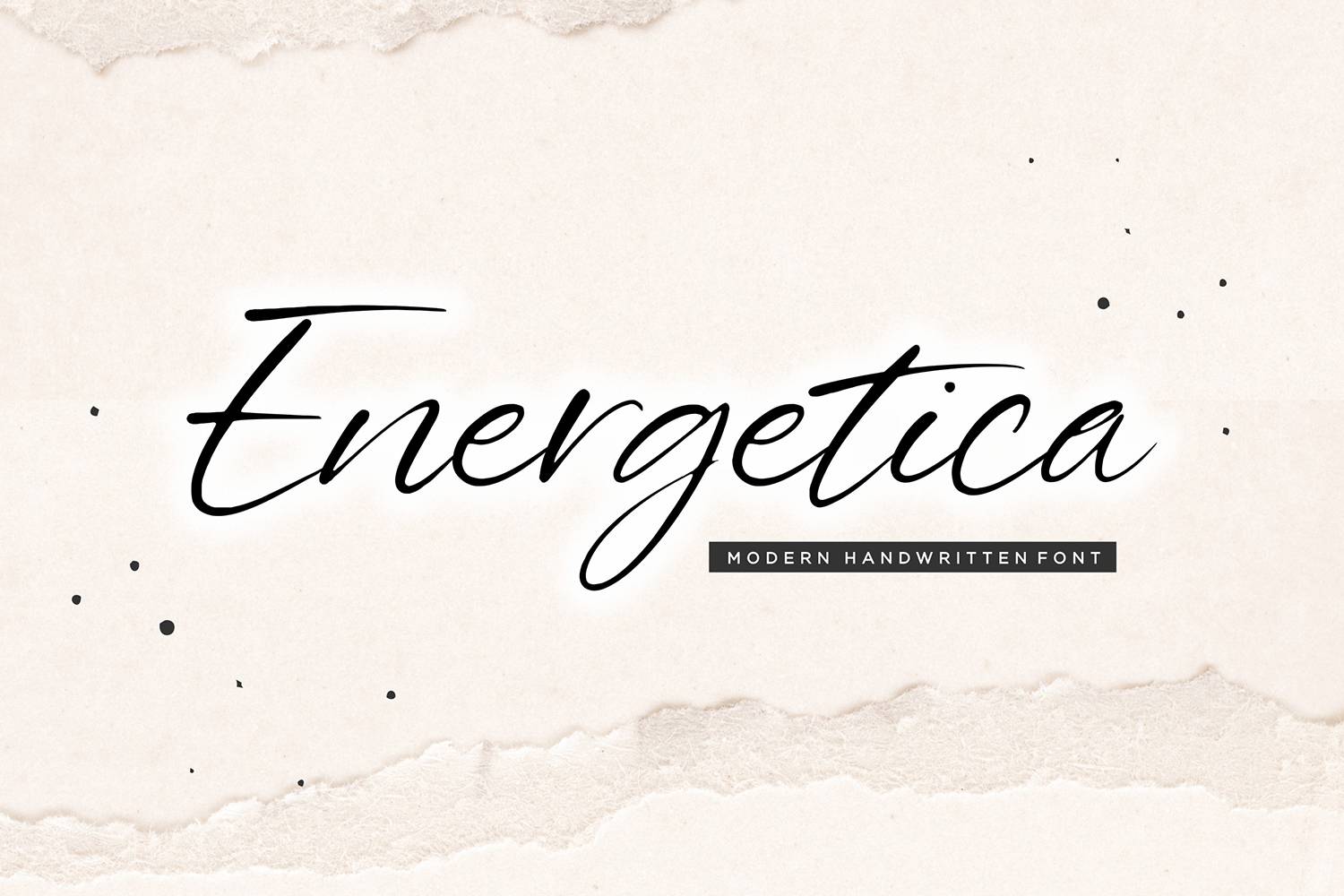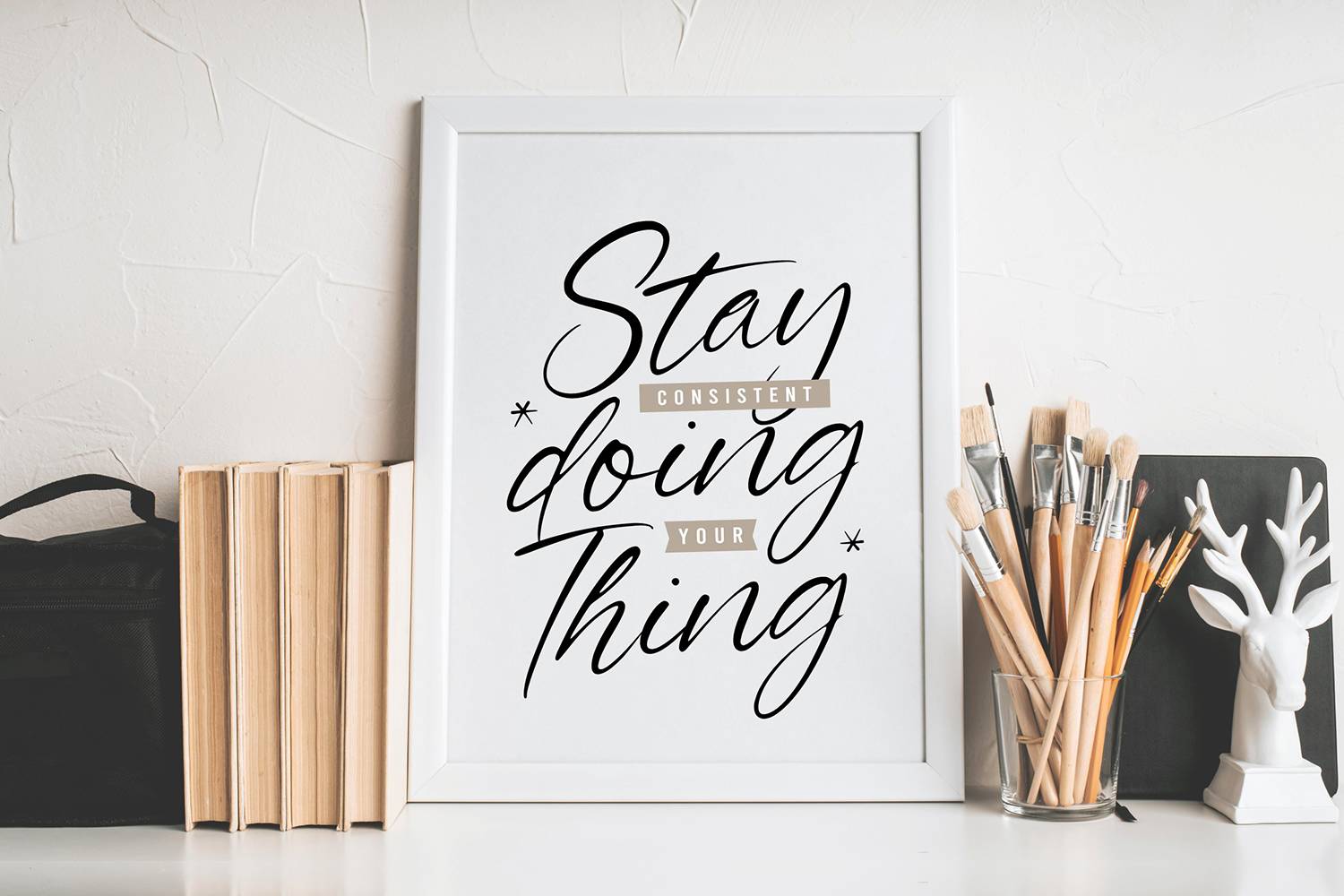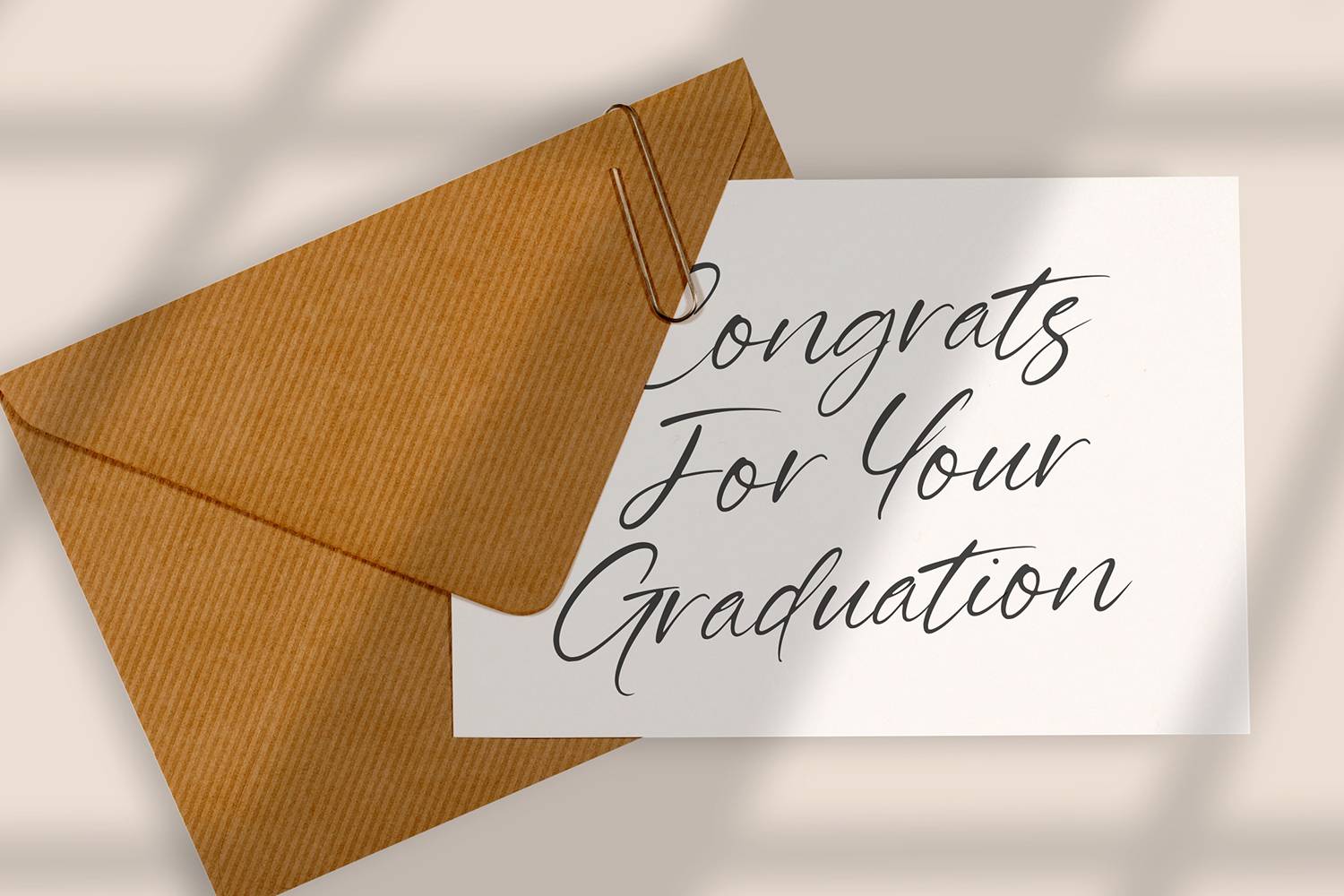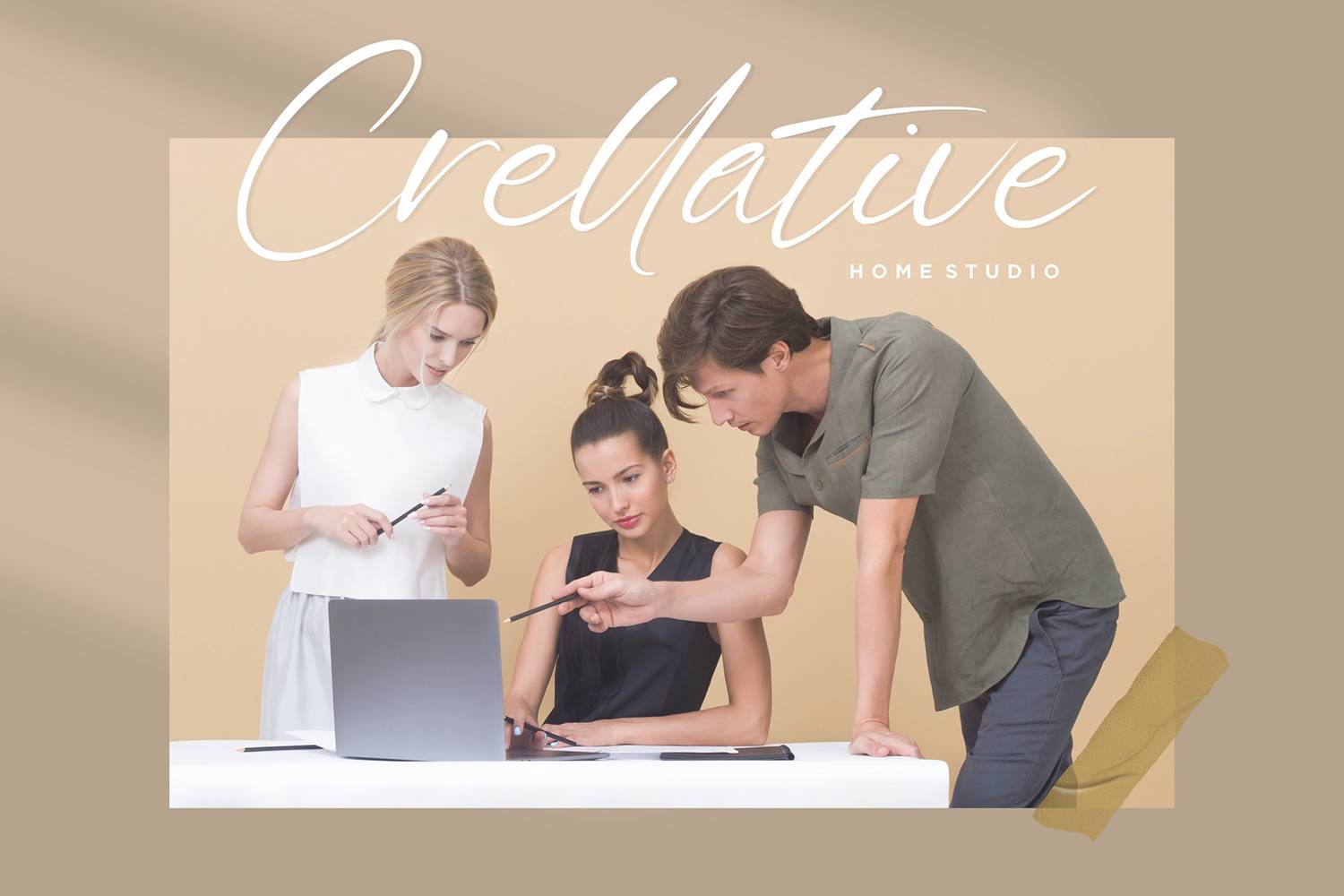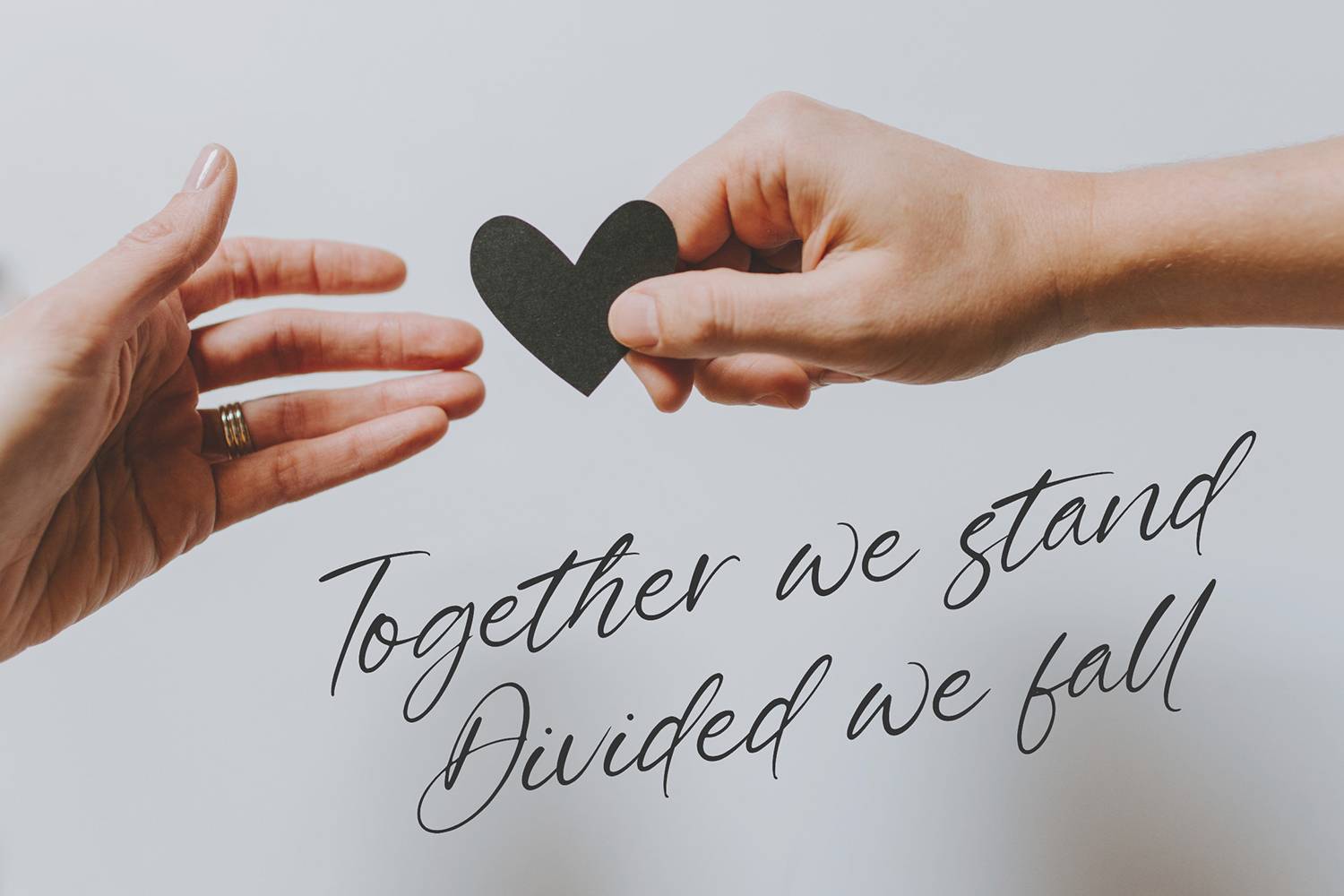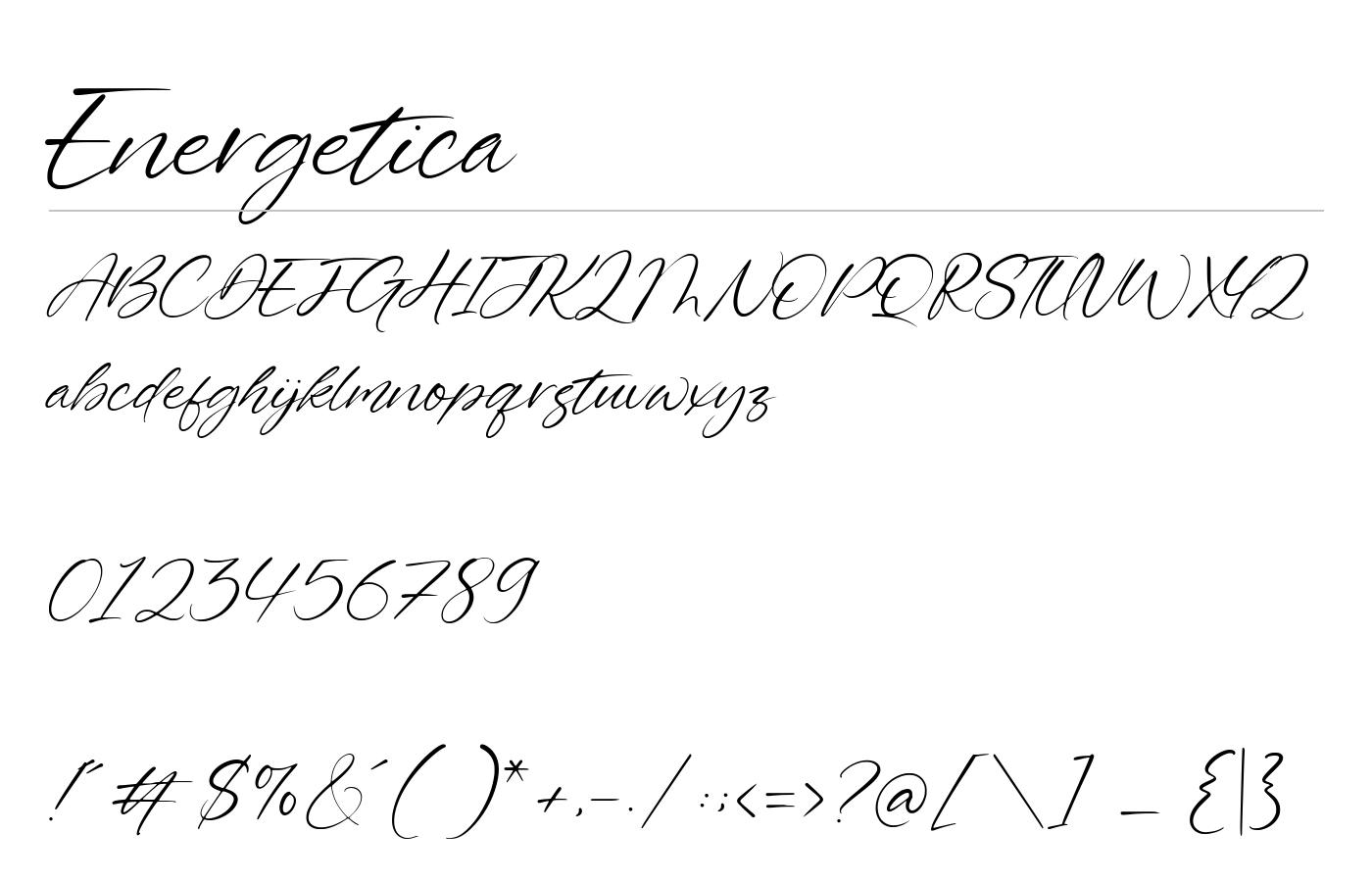
Energetica is a delicate, elegant script font characterized by its slender strokes and graceful, flowing letterforms that mimic natural handwriting with subtle variations in line thickness. Its narrow, tall structure combined with refined curves gives it a sophisticated yet approachable feel, making it ideal for stylish branding, invitations, and editorial accents where a touch of personal elegance is desired. This font works beautifully in designs that want to convey charm and refinement without sacrificing readability.
Energetica Font
About Energetica Font